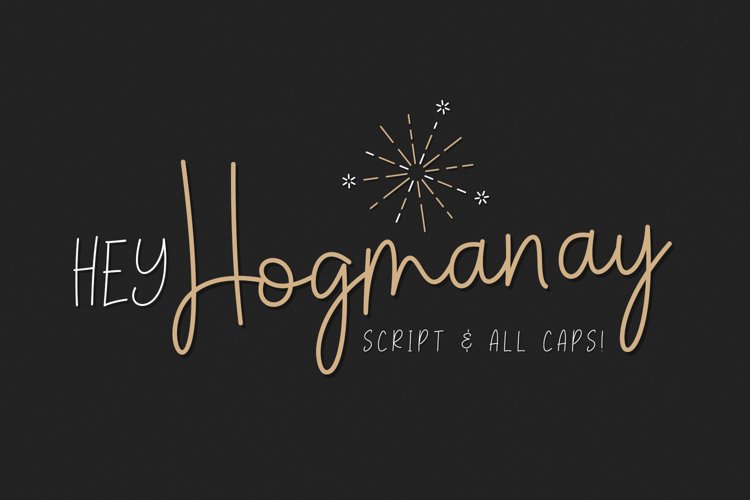
A fun monoline script font!
With it’s clean, handwritten style Hey Hogmanay is perfect for flyers, posters, invitations, greeting cards, gift ideas and much more! It also plays really well with sans serif fonts making it a creative choice for logos and branding!
Hey Hogmanay includes a set of ligatures, including ‘double letter’ ones, to add extra variety to your words! Just remember to turn on discretionary ligatures in your OpenType software.
Hey Hogmanay Caps includes a completely separate set of letters for those moments when you just want to type in all caps! Each letter has been specifically designed to work together where the script font may be a bit tricky.
Both fonts offer multilingual support.